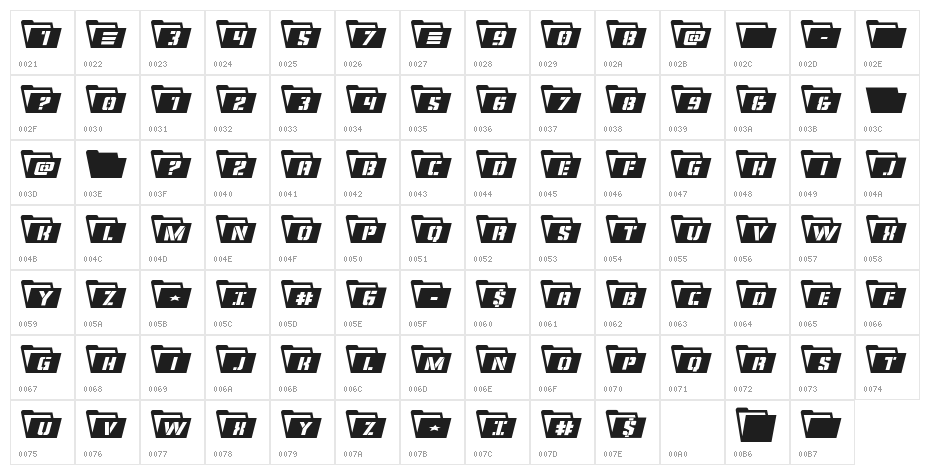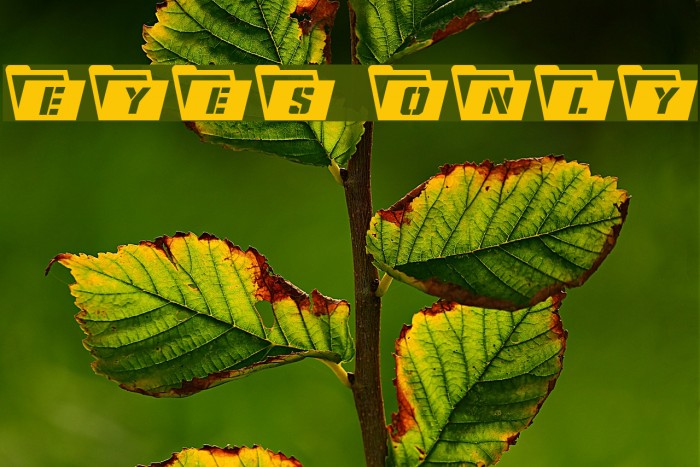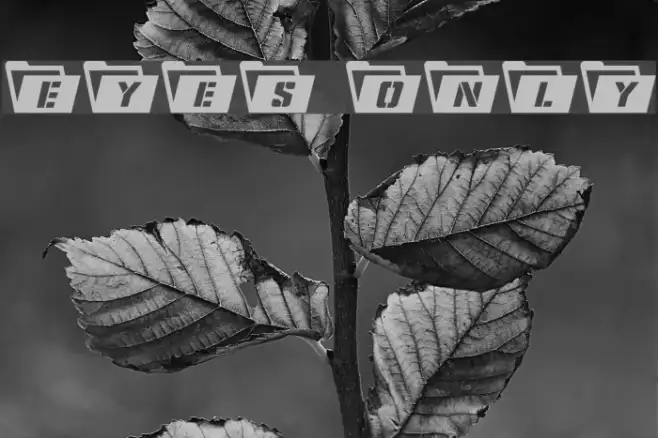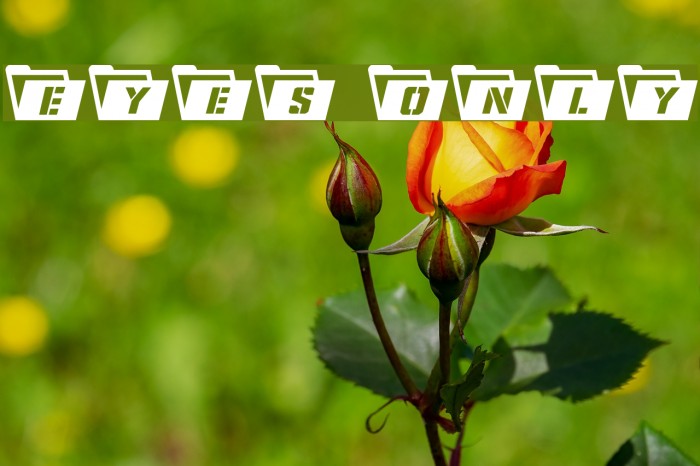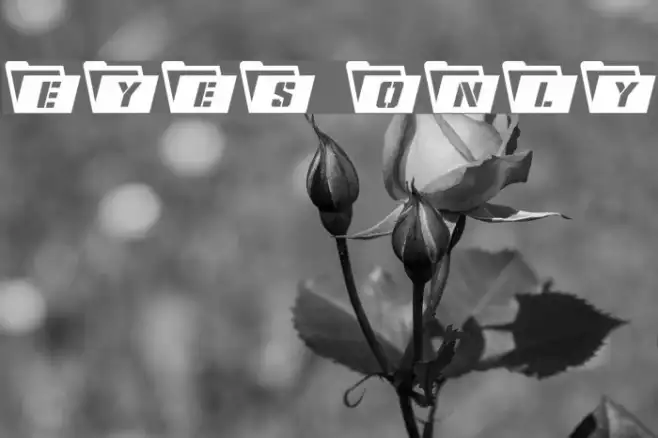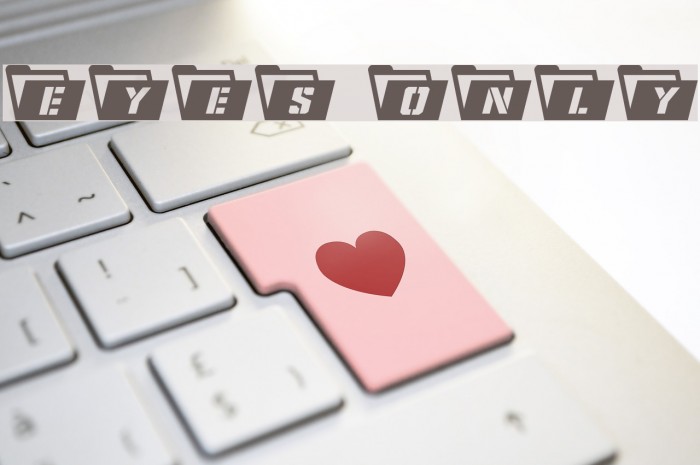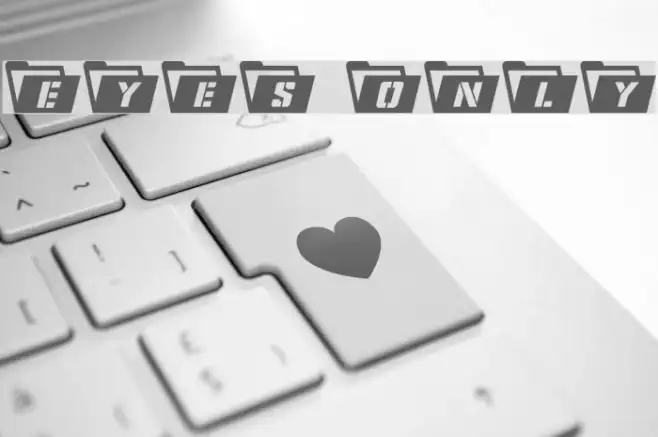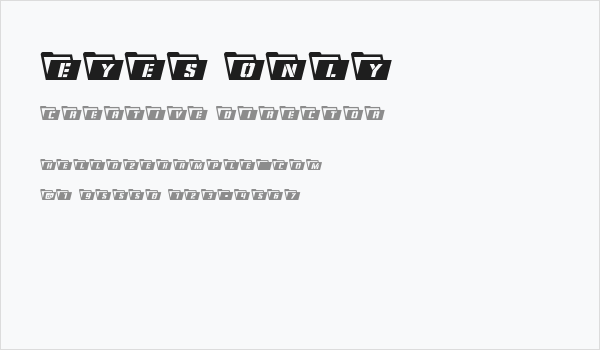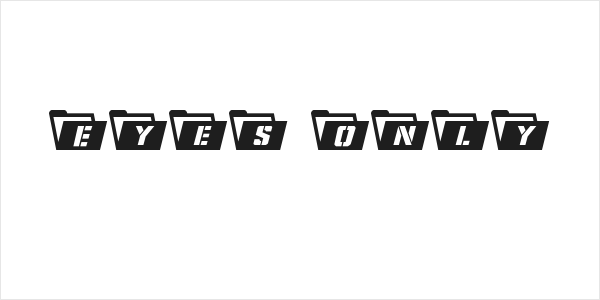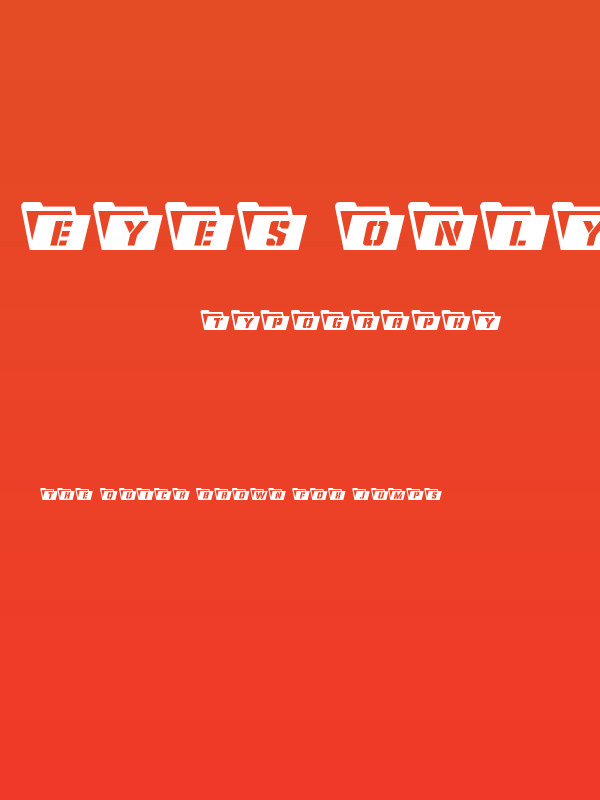
Eyes Only Font
Eyes Only Description
This font features a bold and dynamic design with each character enclosed in a stylized folder-like shape. The letters and numbers are presented in a strong, angular style, giving them a futuristic and tech-inspired appearance. The characters are uniformly bold, with consistent stroke thickness throughout, creating a cohesive and impactful look. The unique enclosure around each character adds a layer of depth and visual interest, making it stand out in any design. This font is particularly suitable for projects that require a modern and edgy aesthetic.
| Proposed Projects | Ideal for tech-related branding, video game titles, or modern poster designs. |